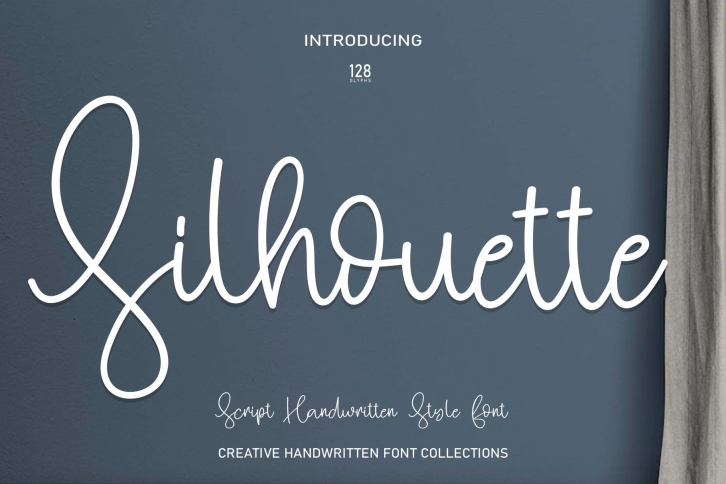
Silhouette is a trendy and unique font with an authentic style. It was designed by Scratchones and it's a great choice for creative people who need such a font. It was released on June 2, 2022 and the file size is 1.63 MB. Silhouette will add an organic vibe to any design idea!